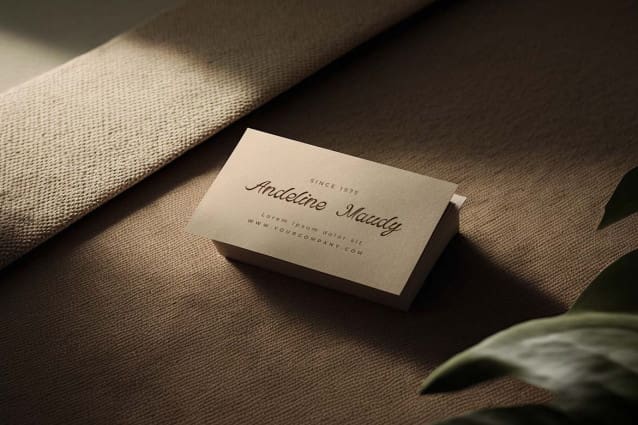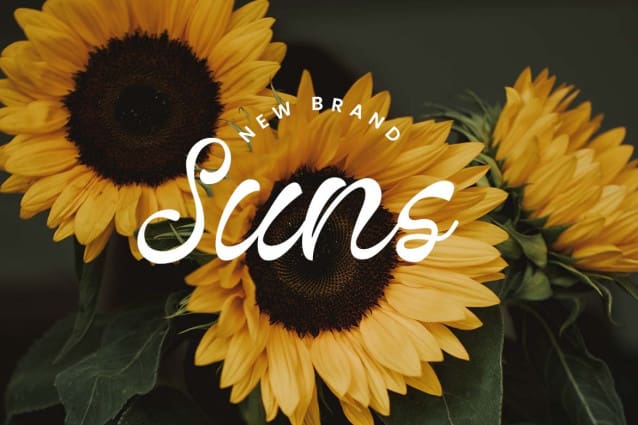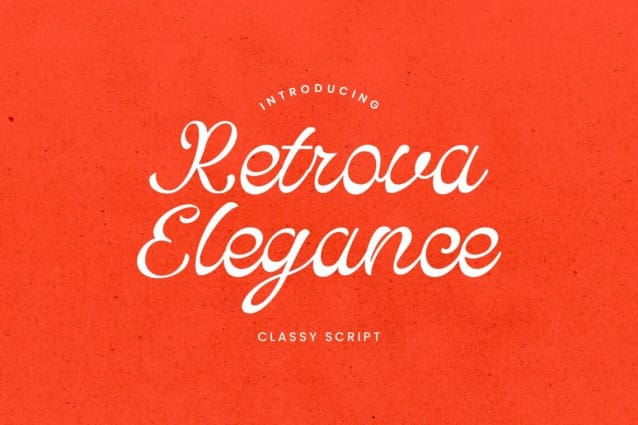
Retrova Elegance Font
Retrova Elegance Font a captivating retro script font that takes you on a nostalgic journey. With its charming swashes and alternate characters, RetrovaElegance adds a touch of vintage elegance to your designs.